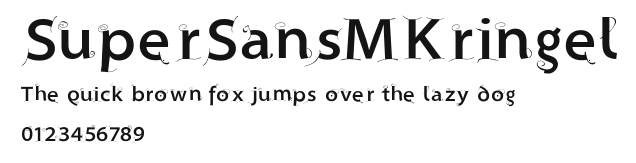
About SuperSansMKringel.ttf
SuperSansMKringel.ttf is a modern, elegant sans-serif font designed for ultimate readability and visual harmony. Perfect for branding, headlines, web design, and print materials.